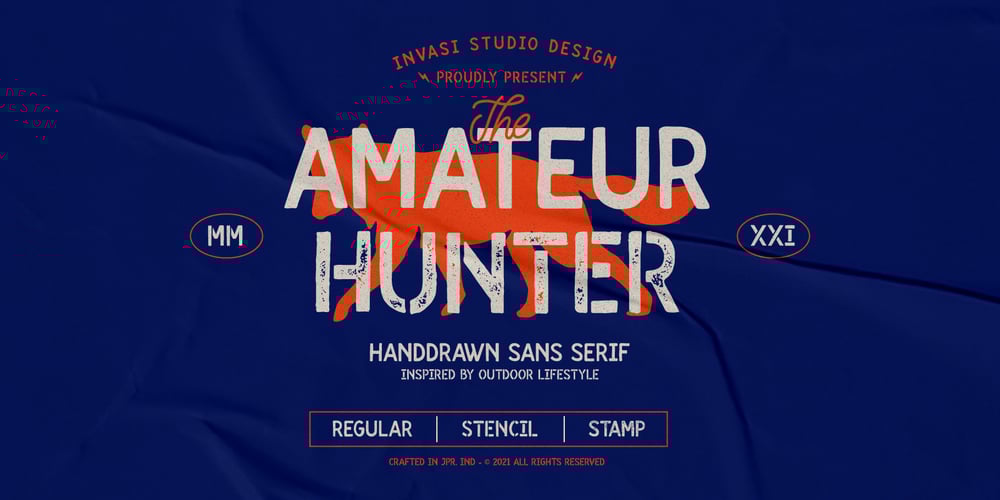
Amateur Hunter
Amateur Hunter font
Amateur Hunter Font Family was designed by Gha Arizal and published by Invasi Studio. Amateur Hunter contains 4 styles and family package options. Introducing a Handdrawn Sans Serif, the Amateur Hunter inspired by outdoor lifestyle. Amateur Hunter includes 4 font files with Regular, Stencil, and Stamp styles. Amateur Hunter is a great font for achieving an authentic vintage aesthetic as seen in the display images or Body text project, it is perfect for headings, flyers, greeting cards, product packaging, book cover, quotes, logotype, apparel design, album covers.